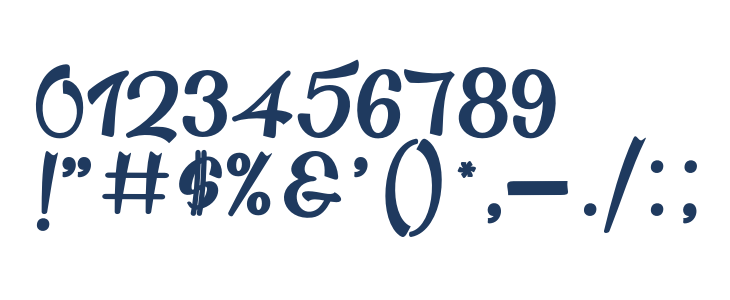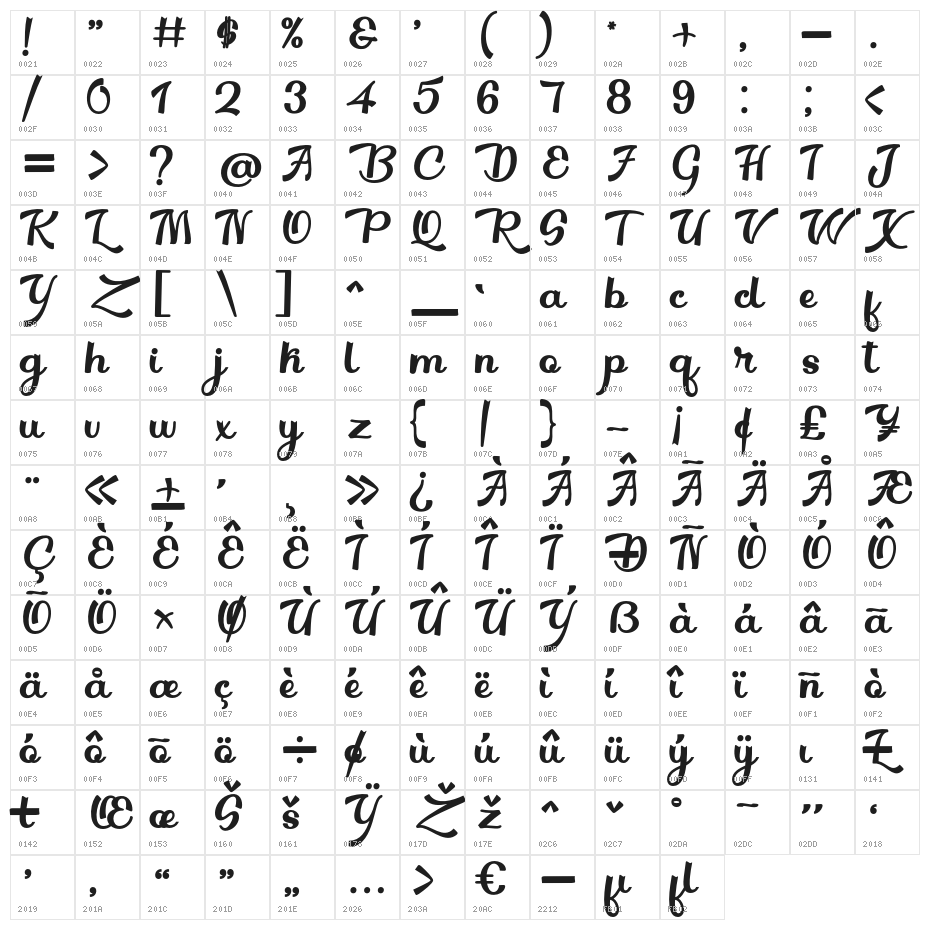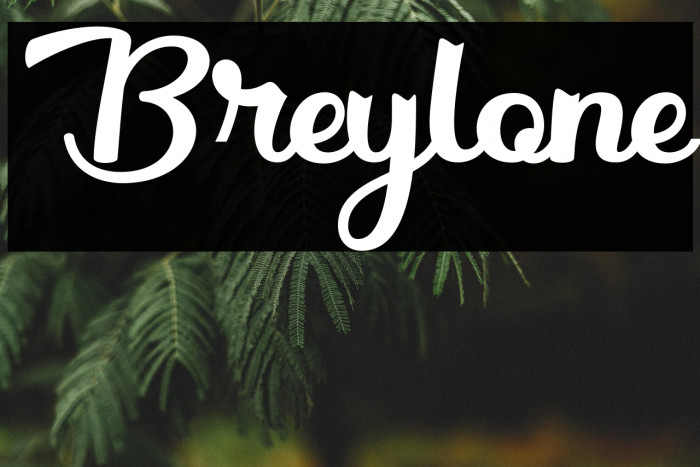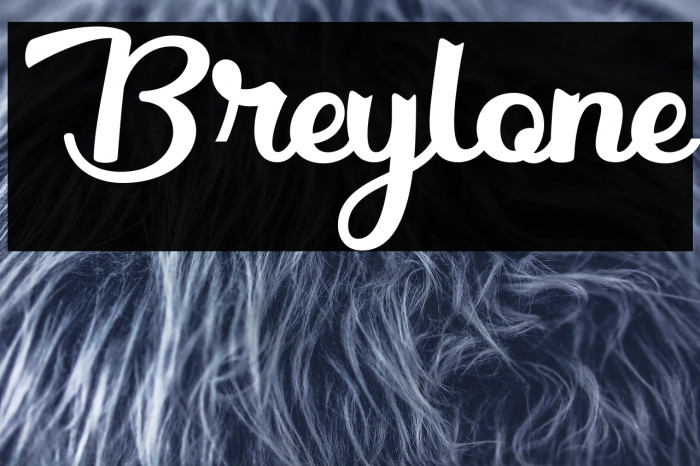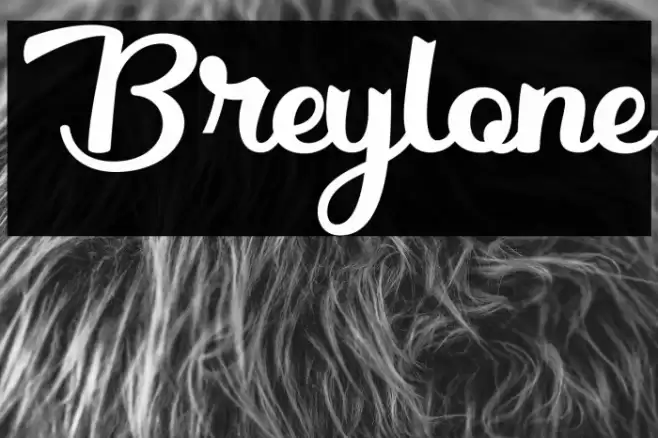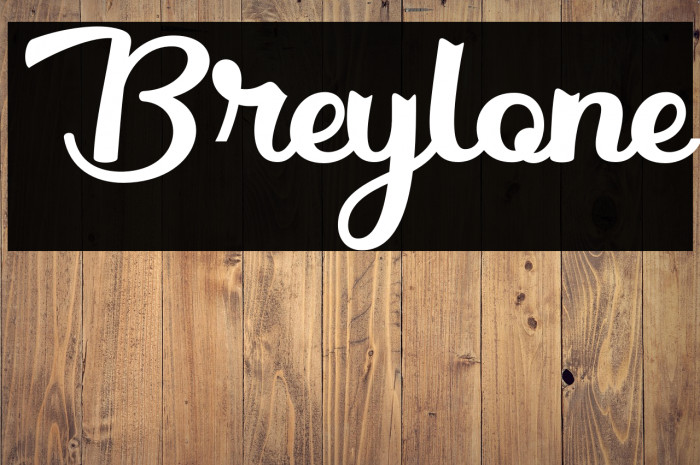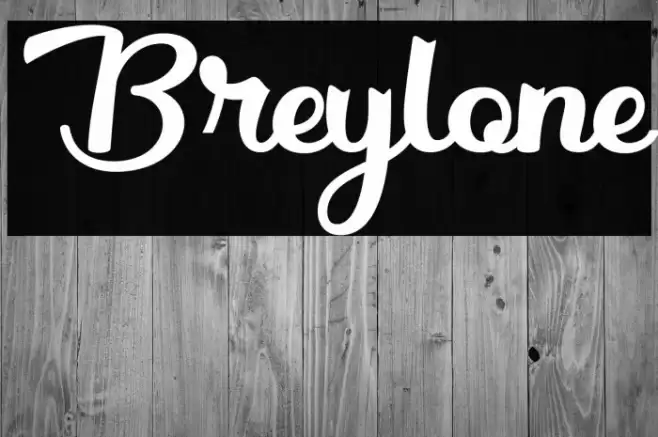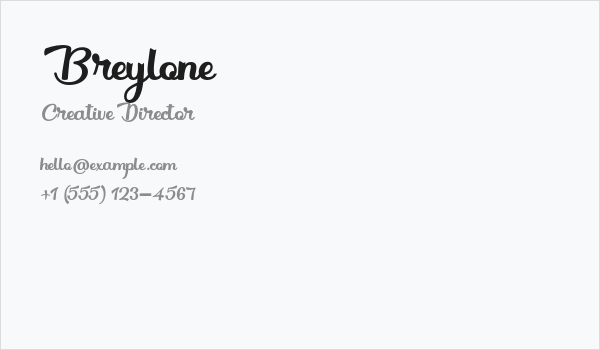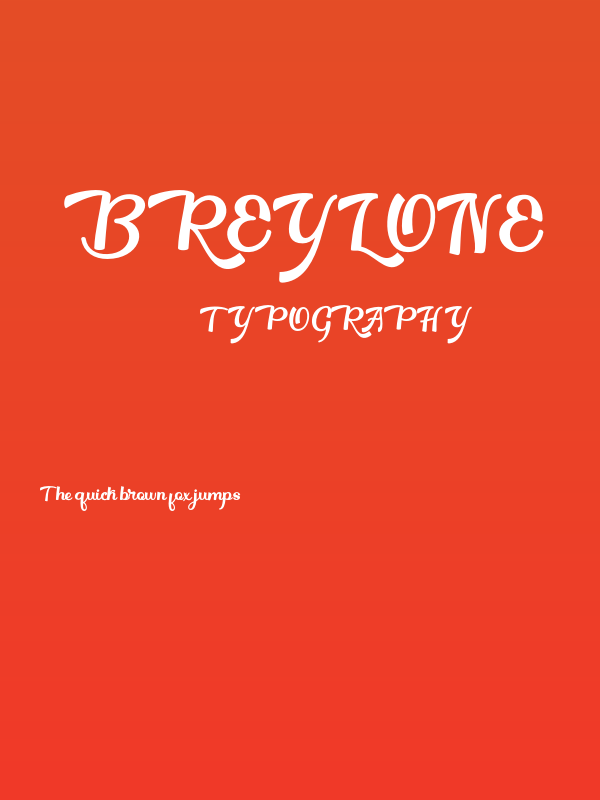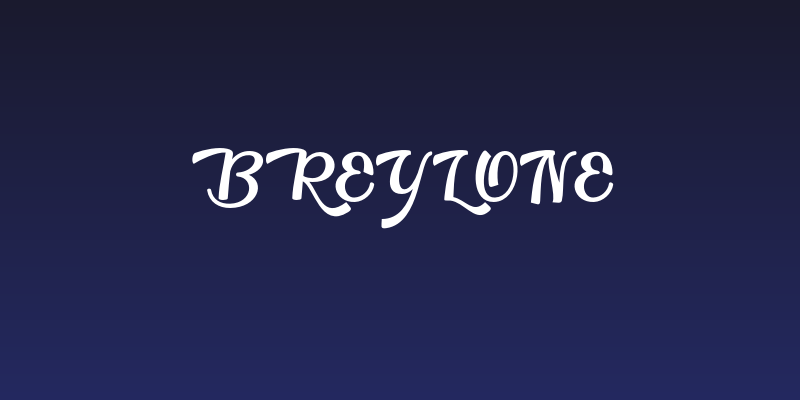
Breylone Font
Breylone Description
This font features a dynamic and flowing script style, characterized by its elegant and cursive letterforms. The uppercase letters exhibit a graceful and slightly slanted appearance, while the lowercase letters maintain a consistent fluidity with smooth curves and rounded edges. The numerals are bold and slightly italicized, complementing the overall script aesthetic. Special characters are designed with the same attention to detail, ensuring a cohesive look across all glyphs. This font's playful yet sophisticated style makes it suitable for a variety of creative applications.